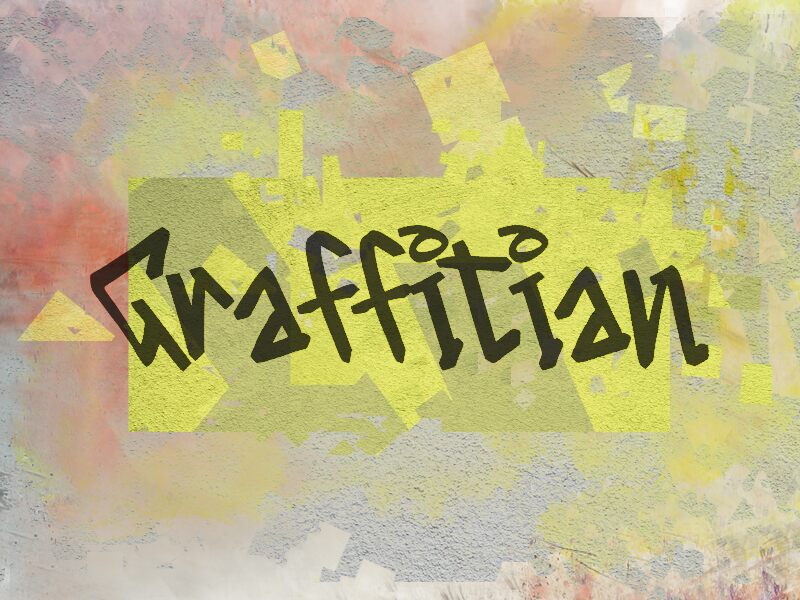
Graffitian
Graffitian font is a graffiti font designed by wep that embodies an urban, expressive, and edgy style. The typeface boasts an artistic flair with a contemporary vibe, capturing the rebellious spirit synonymous with street art culture. It’s free to download and use in personal and commercial projects.
Use Graffitian for branding, clothing design, event posters (concerts/skateboarding), package designs (brewery/skateboard/bicycle company), magazines/book covers (focusing on breakdance/rap/graffiti subcultures), games starring street gangsters or criminals from present times among others!
Graffitian is a unique typeface that brings a fresh perspective to the world of fonts. It combines modern aesthetics with classic elements, making it suitable for various design projects.